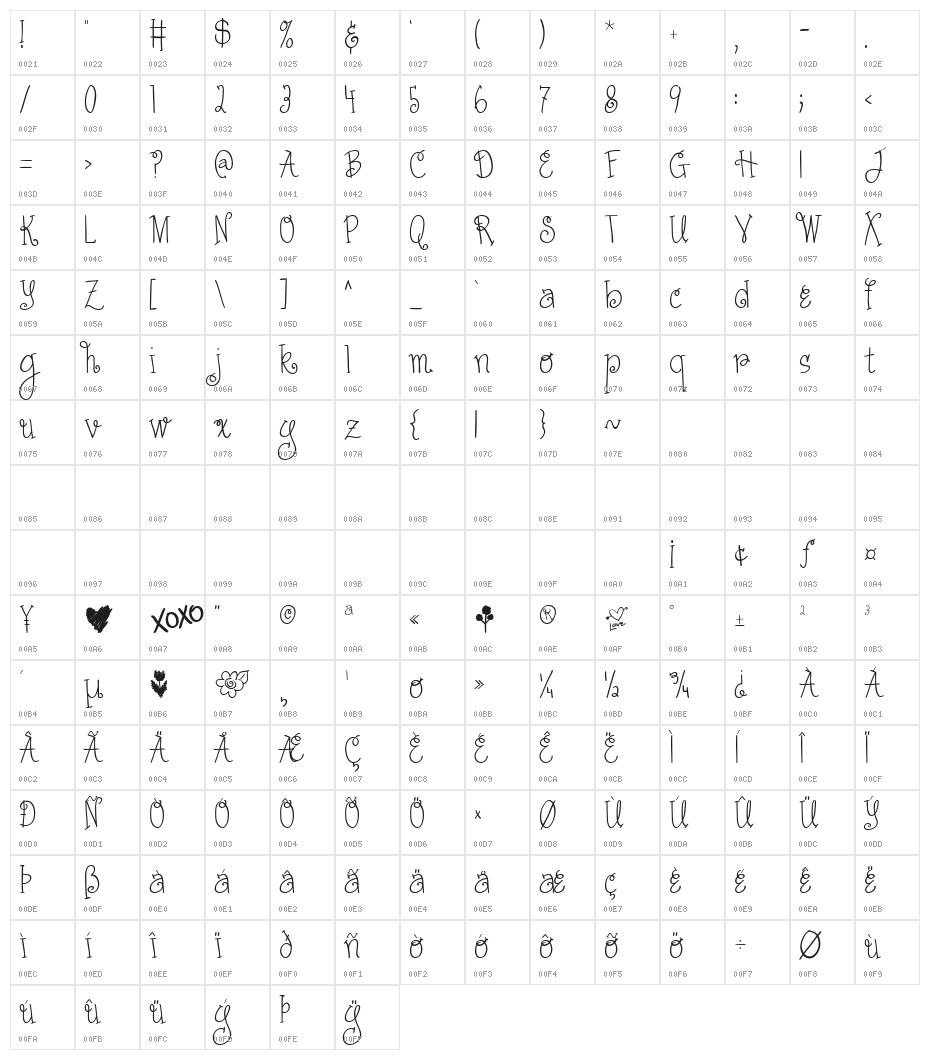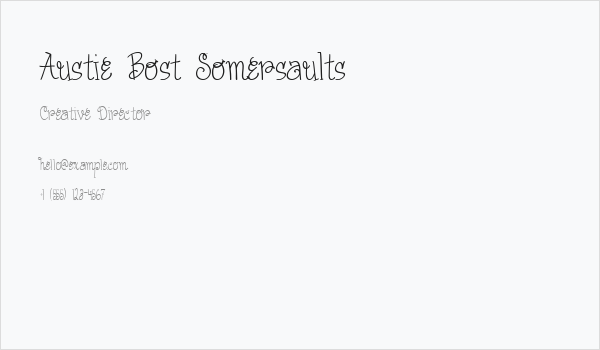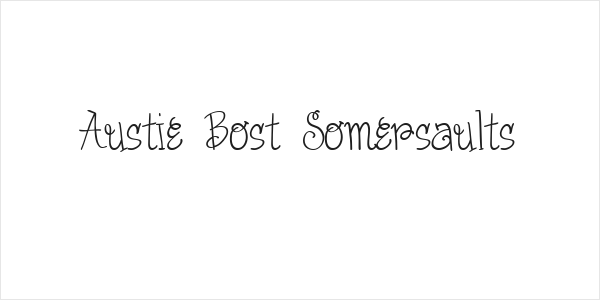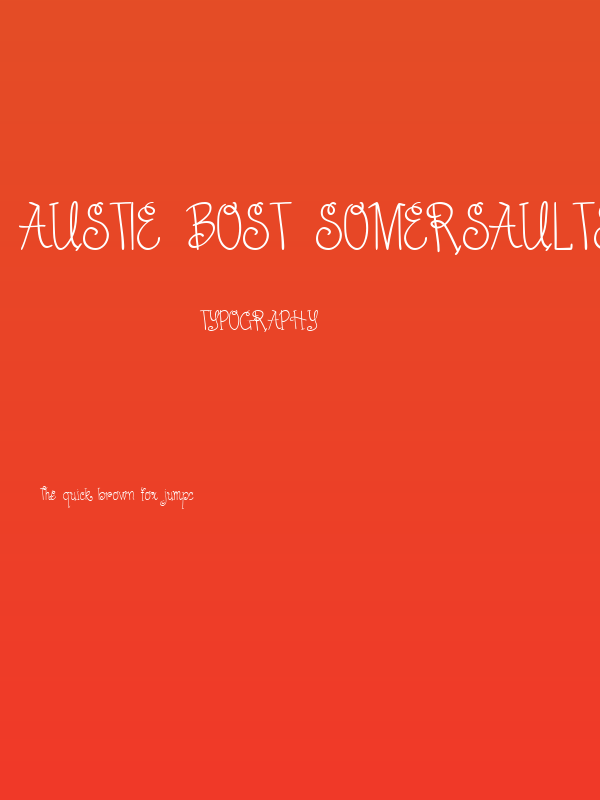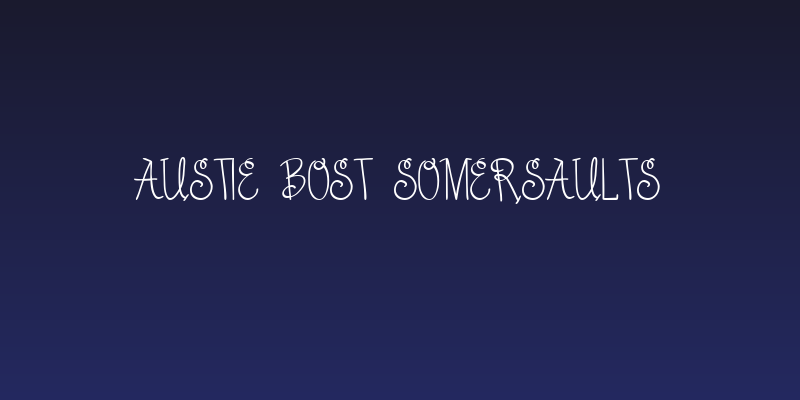
Austie Bost Somersaults Font
Austie Bost Somersaults Description
This whimsical and playful font features a hand-drawn, curly style with a unique flair. The uppercase letters are tall and slender with exaggerated loops and swirls, giving them a lively and energetic appearance. The lowercase letters maintain this playful aesthetic, with some characters featuring distinctive curls and twists. Numbers and special characters follow the same design principles, ensuring consistency throughout. The font's overall look is both charming and informal, making it ideal for projects that require a touch of fun and creativity.
| Proposed Projects | Perfect for children's books, greeting cards, playful branding, and creative invitations. |